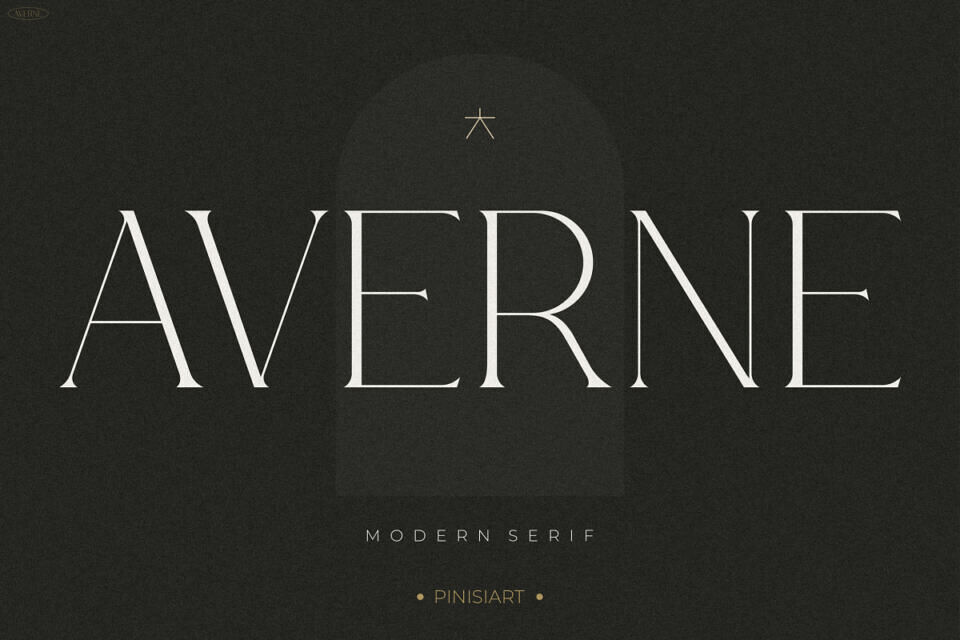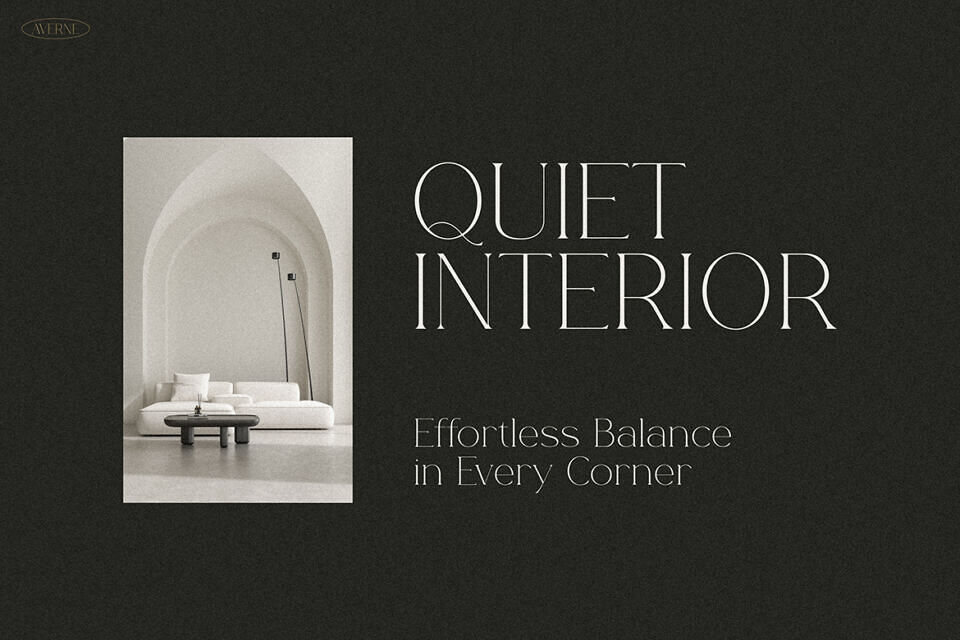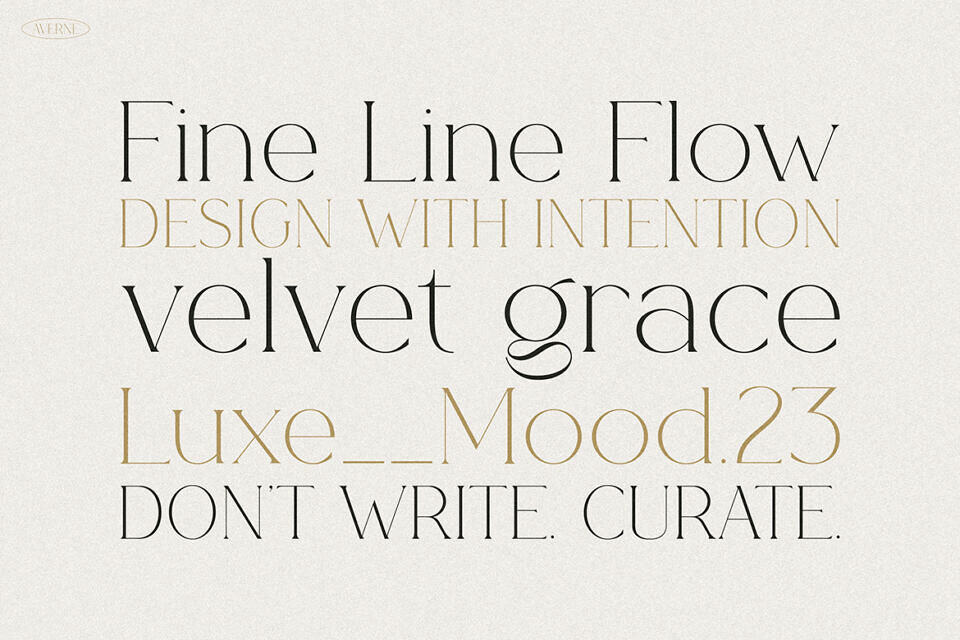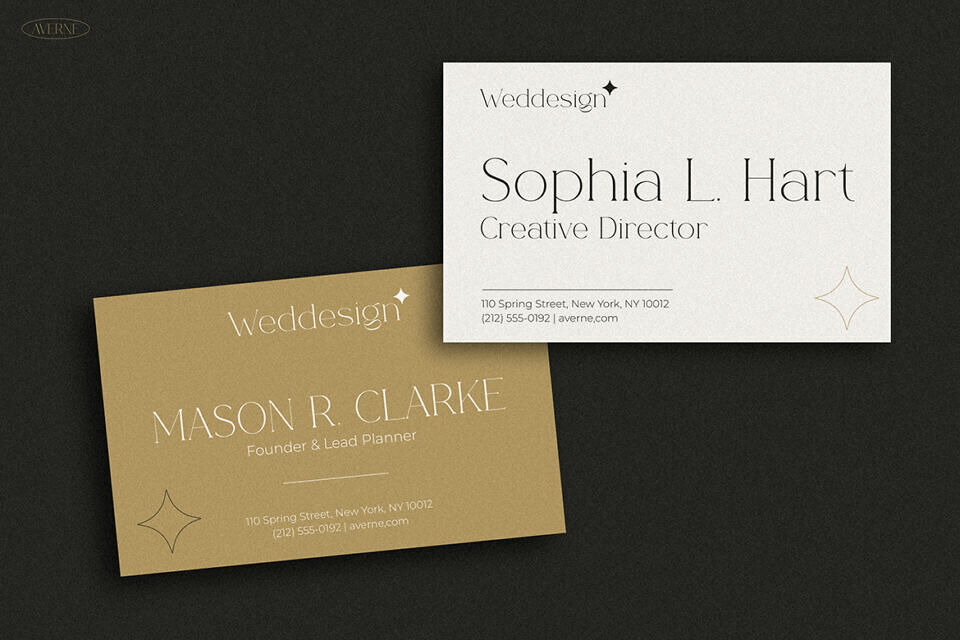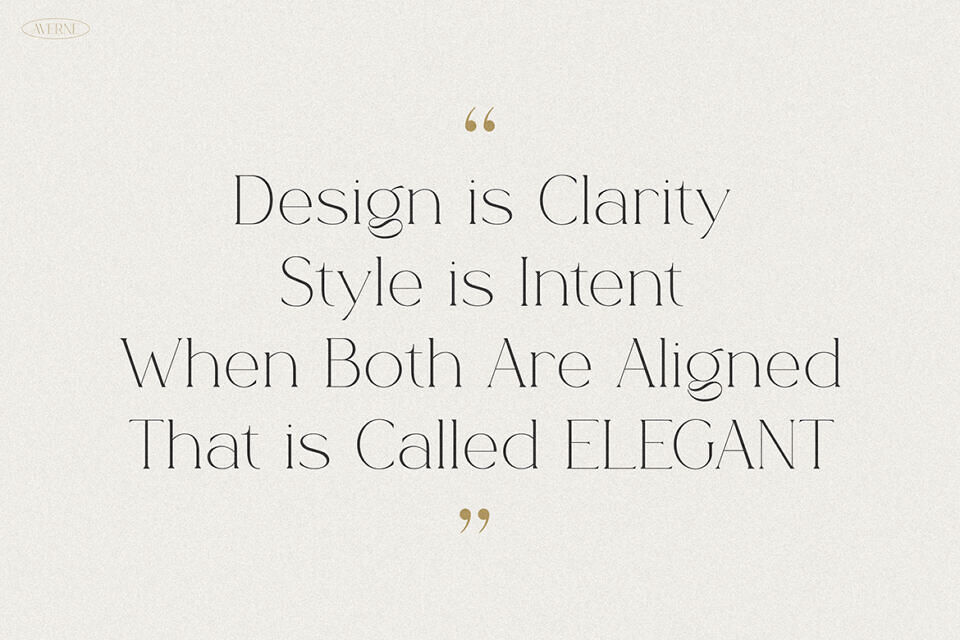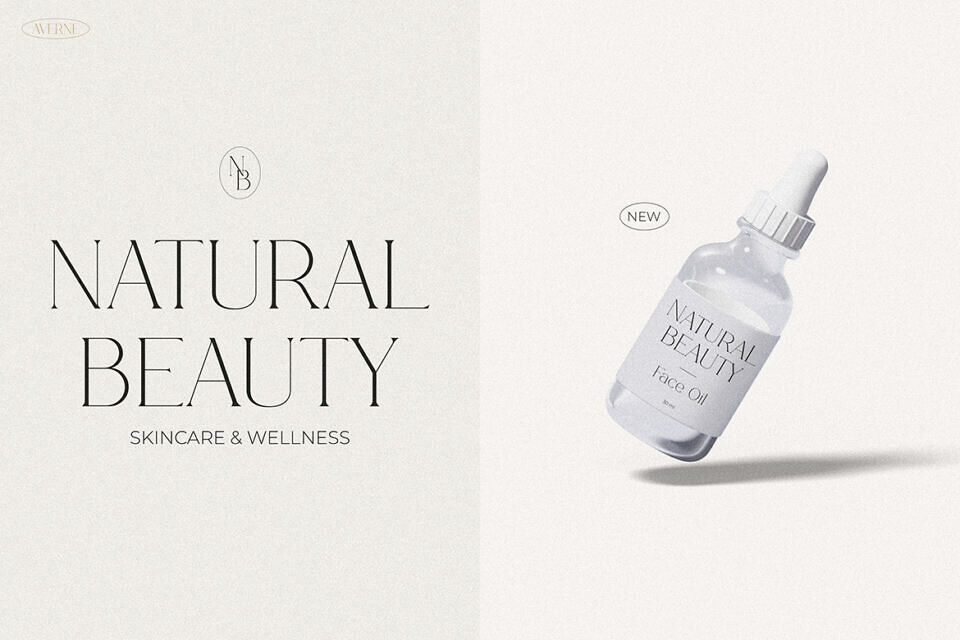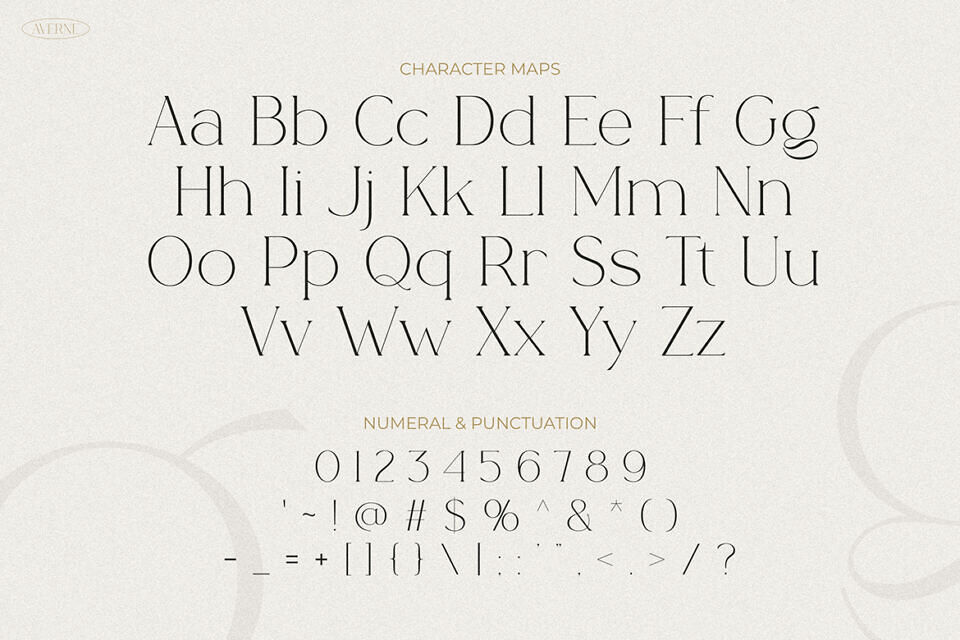
Averne Font immediately elevates any design with its refined elegance and modern appeal. This high-contrast serif font combines timeless sophistication with clean, minimal lines, creating a harmonious balance between beauty and function. As a result, it doesn’t just look attractive—it enhances your content’s message.
Whether you’re designing for digital platforms or print media, Averne adds clarity, character, and charm to every element it touches.
Averne is a perfect match for creatives seeking both function and elegance. Designers, lifestyle brands, wedding planners, wellness businesses, and boutique agencies will all find value in its versatility. Furthermore, social media creators and influencers can use it to develop a premium, cohesive aesthetic across platforms—especially on Instagram, where visuals speak louder than words.